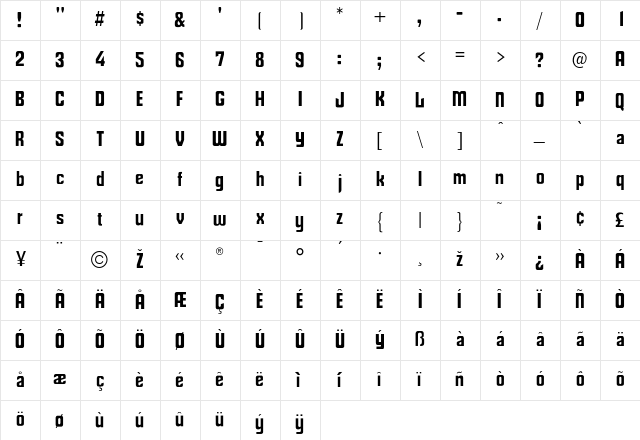
OthelloFill Regular
| Version | Version 1.100 2009 fixed '6'. This is a FILL version. Overlaying this with OthelloOutline can produce two-color characters. |
Design Context for OthelloFill Typeface
OthelloFill takes a measured approach to typography — its balanced proportions and neutral character make it a reliable workhorse for both digital and print work.
Pro Tip: Pair OthelloFill with a font of contrasting weight or personality to build a more expressive typographic hierarchy.